50+ Best Slab Serif Fonts
Give your designs a strong foundation with our slab serif fonts. Known for their thick, block-like serifs, these fonts are perfect for headlines, posters, or any design that requires a bold, assertive touch.
Risbak Creative Font
Risbak Creative Font is a slab serif display font, designed to add flair to your creative projects. With its bold strokes and playful characters, it...
Clab Modern Slab Serif Font
This font is the perfect example of a slab serif font. It has a chunky letter design with thick serifs. Making it a great choice for designing attract...
Elmville Bold Slab Serif Font
Crafted with precision, the Elmville Bold Slab Serif font stands with a spellbinding blend of character. Its bold architecture features slab serifs ex...
Lawless Retro Old West Font
Lawless is a retro-vintage western font that has a classic letter design inspired by old west movies. This font comes in 4 different styles for you to...
Slabtro Slab Serif Display Font
Introducing Slabtro, a slab serif display font with a healthy dose of retro flair. Known for its robust, bold strokes, and delightful characters embel...
Boxing Vintage Slab Serif Font
Featuring a bold retro design, this slab serif font comes with a set of all-caps letters. It’s most suitable for making titles and headings for ...
Redemption Wild Western Font
Redemption is a creative slab-serif font with a wild west look and feel. It also has classic cowboy-style letter designs that will make your designs s...
Munky Slab-Serif Retro Font
Munky is a slab-serif font that comes with a retro design inspired by the 60s. The thick bold letters of this font make it a great choice for crafting...
Euphoria Vintage 3D Font Family
Euphoria is a family of 11 different fonts. It includes various styles of fonts such as outline fonts, gradient fonts, Victorian-style fonts, and 3D-l...
Xantheus Font
Xantheus is a bold slab serif font you can use to create titles and headers for posters, website headers, and banners. The font comes in two weights, ...
Hornbill Modern-Retro Font
This font comes with a set of unique character designs that you usually don’t see in a retro font. It features a combination of modern and retro...
Grante Slab Serif Display Font
Presenting the Grante Slab Serif Display Font, a unique font designed to add a touch of charm and sophistication to your creative projects, both digit...
Korsen Modern Slab Serif Font
Korsen is a unique slab serif font that features a modern design with stylish decorative elements. The font is perfect for crafting logos, labels, and...
Rebute Slab Serif Font
Rebute features a mixed design featuring elements of both modern and classic styles. The font is available in regular and italic versions and it’...
Manline Slabs Classic Slab Font
The Manline Slabs Font, a Modern Serif Font, will revolutionize your design world this festive season. This is no ordinary display font; it brings aut...
Fable Bug Font
Fable Bug comes with a fun and quirky design that makes it perfect for crafting book covers, posters, and greeting cards, especially related to childr...
Ferguson Slab Serif Font Family
Modeled after the magazine designs of the bygone era, Ferguson is a neat, geometric slab serif font family that is incredibly fitting to a large pool ...
Troupe Slab Font
This unique font features slab serifs with a fun and quirky design. The font is most suitable for T-shirt designs, greeting cards, and other print and...
Murmers Slab Serif Font
Murmers slab serif font comes with a horror and suspense-filled design that makes it look more like a title from a vintage movie. In addition to the f...
Simple Note Minimal Slab Serif Font
Just as the name suggests, this font comes with a simple and clean letter design that will fit in perfectly with any professional design. It’s e...
Luxe Slab Font
Yet another slab serif font with a high-end design. This font can be used with your designs related to luxury brands as well as with logotype, busines...
Neue Stanley Slab Serif Font
Introducing Neue Stanley, a vintage serif font with a bold and striking appearance. This font takes its inspiration from the classic letters seen in o...
Ace Serif Slab Serif Font
Ace Serif is a modern slab serif font that features a professional design, making it a great choice for designing modern website headers, posters, tit...
Dezire Modern Slab Serif Font
Dezire is a slab serif font featuring a modern design. This font is perfect for sports all kinds of sports-related designs as well as for making big b...
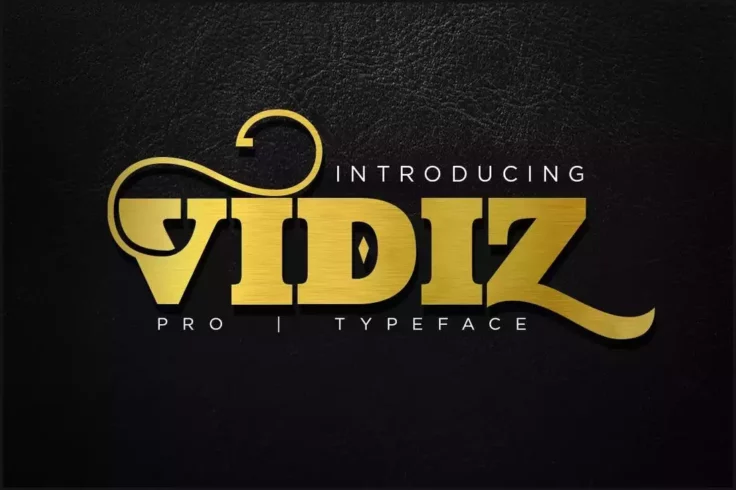
VIDIZ PRO Typeface
Vidiz Pro is an elegant slab serif font that also features a luxurious design. This makes it the perfect choice for designing a logo, poster, website ...
Galvin Slab Serif Font Family Pack
Galvin is a complete slab serif font family that comes with 8 different weights ranging from regular, outline, thin, and bold. The condensed design of...
While the origin of Slab Serif Fonts dates back to the 19th century, these fonts can be seen as both vintage and modern. With their appearance in the industrial revolution and frequent use in the 19th century, they carry a vintage feel. However, their bold, striking characteristics give them a contemporary edge as well, making them a versatile choice for both modern and retro design projects.
Moreover, there are quite a number of newer Slab Serif typefaces which are designed with a modern twist, keeping them relevant and appealing for current graphic design standards and trends.